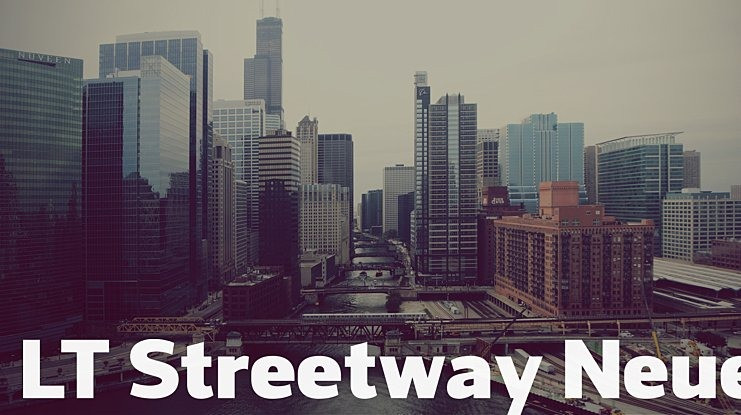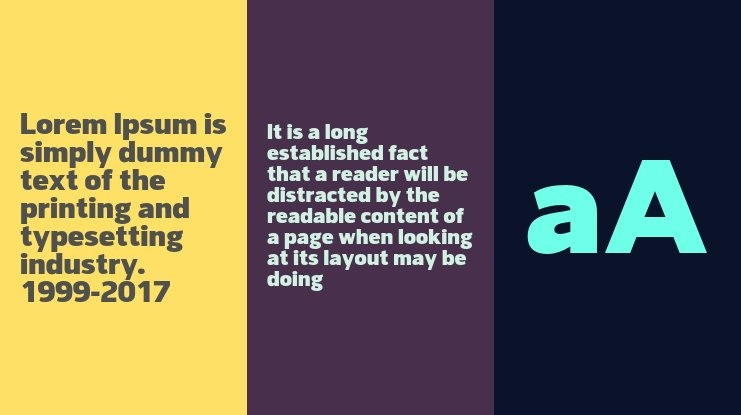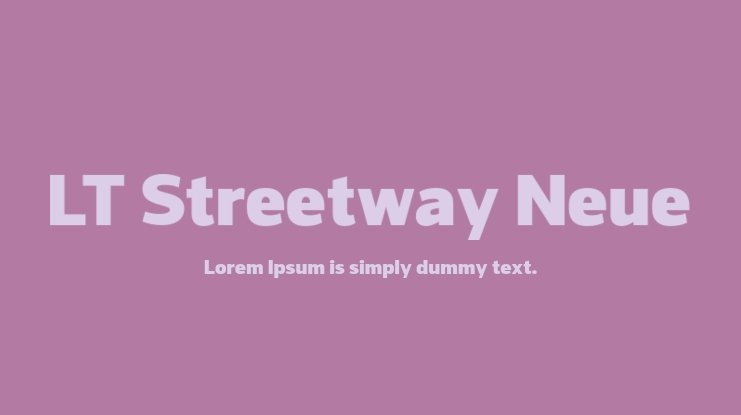
LT Streetway Neue Font Family
LT Streetway Neue Font Family,  a bold statement with our latest sans-serif font. With its clean lines and modern appeal, this font is sure to turn heads and leave a lasting impression. Perfect for headlines, logos, and any design that demands attention. It is both functional and stylish, making it a versatile choice for a wide range of design projects. described with a touch of elegance, perfect for your favorite projects.
LT Streetway Neue, part of The Neue Pack by LyonsType.